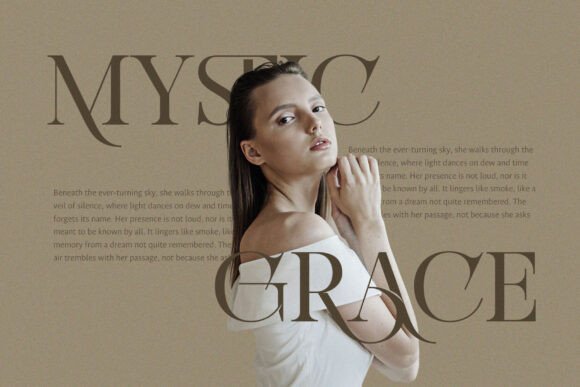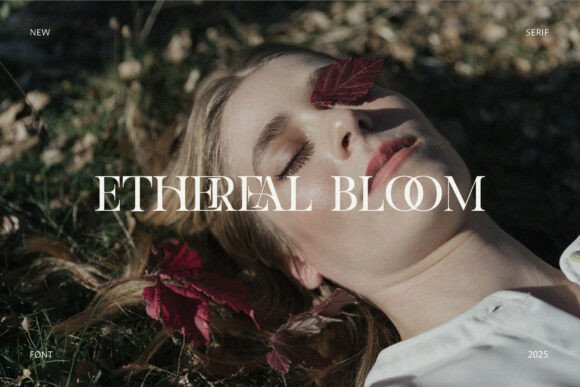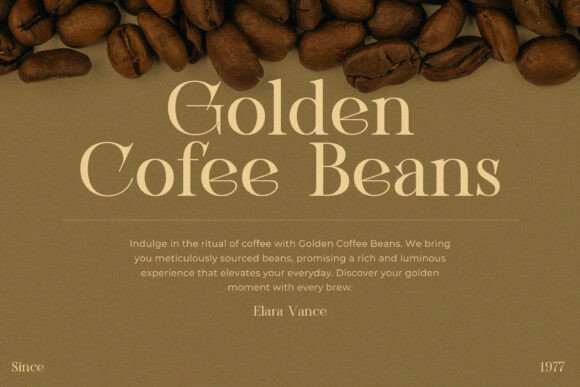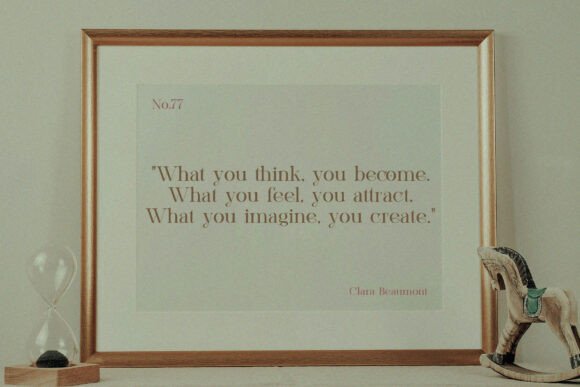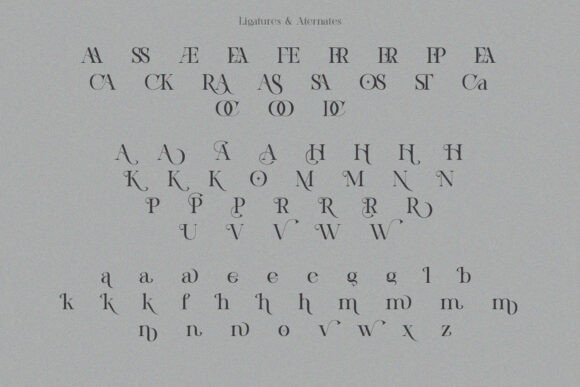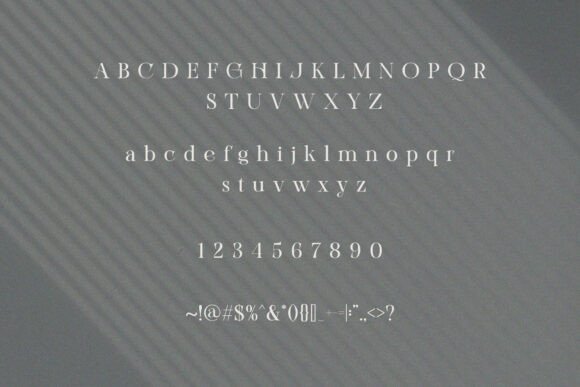
Introduction to Rikatin Font
Rikatin is a chic and contemporary serif font with a luxurious flair.
Defined by elegant curves, high contrast strokes, and refined flourishes, Rikatin blends modern sophistication with timeless beauty Ideal for fashion branding, editorial layouts, logo design, and upscale product packaging, this font radiates class and creativity.
Key Features of Rikatin Font
Why Choose Rikatin Font?